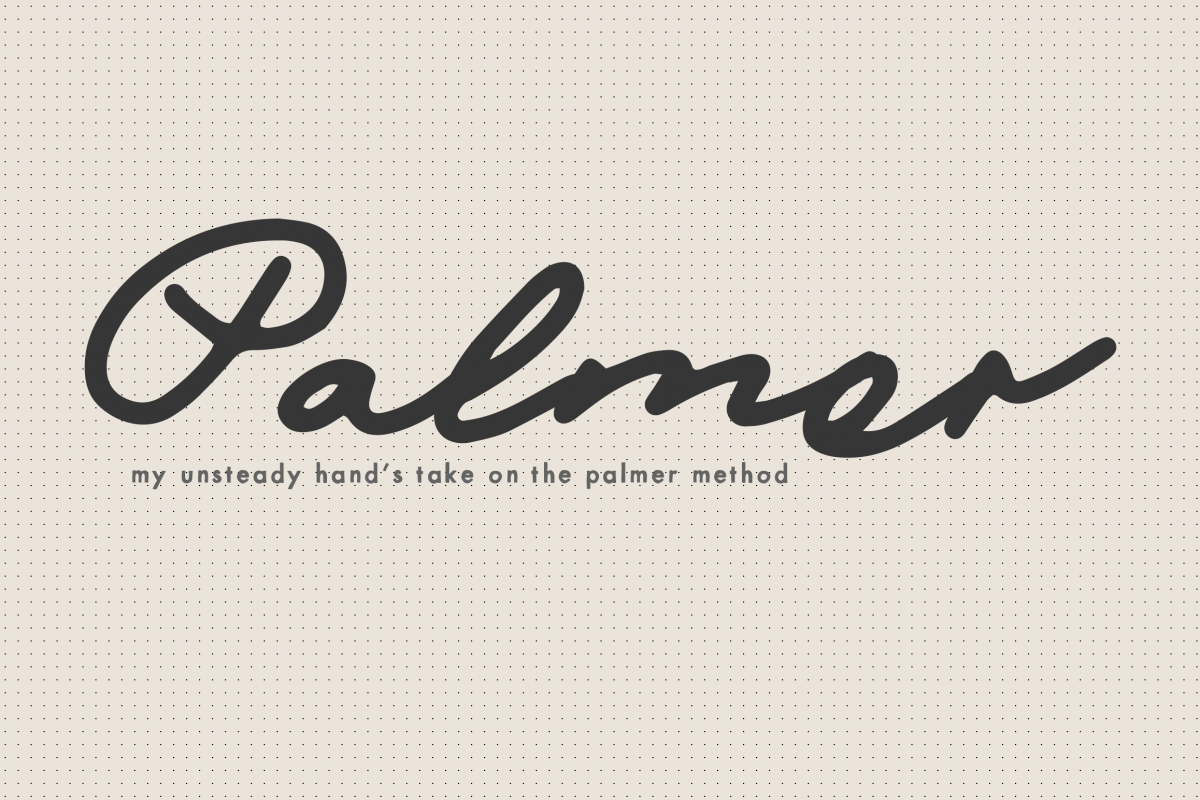
Palmer - my unsteady hand's take on the palmer method
Mix Palmer
MIX PALMER, is my unsteady hand's take on the palmer method of writing. This typeface is perfect for creating a roughly scribbled look.